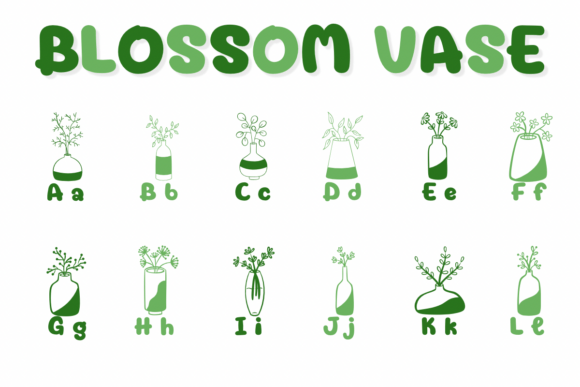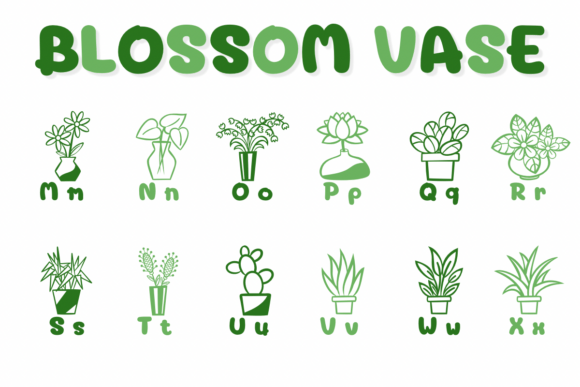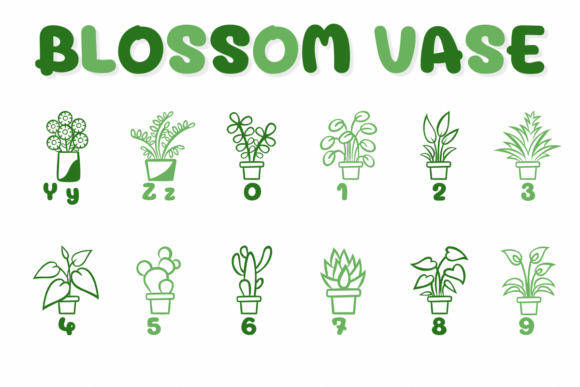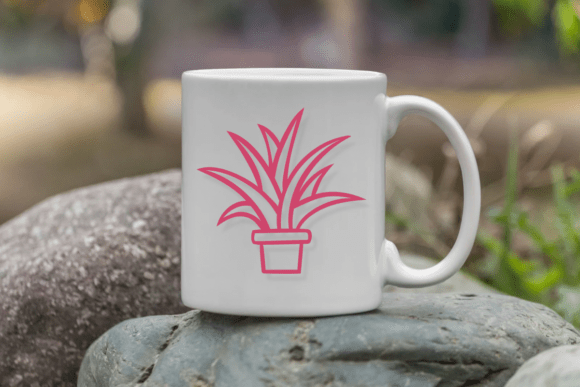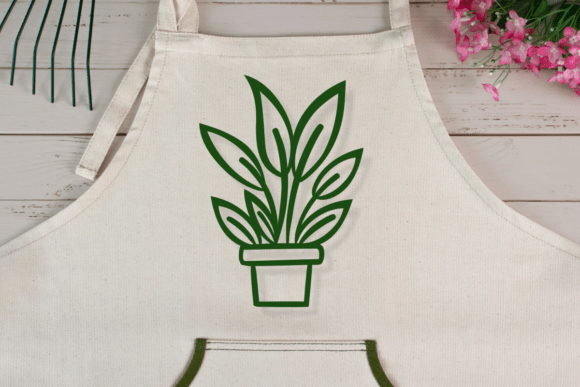
Introduction to Blossom Vase Font
Blossom Vase Dingbats Font features a lovely collection of floral arrangements and potted plant icons, each drawn in a clean line-art style.
Perfect for garden-themed projects, home decor signage, eco-friendly branding, or craft templates, this font adds a natural, elegant touch to your designs .
Key Features of Blossom Vase Font